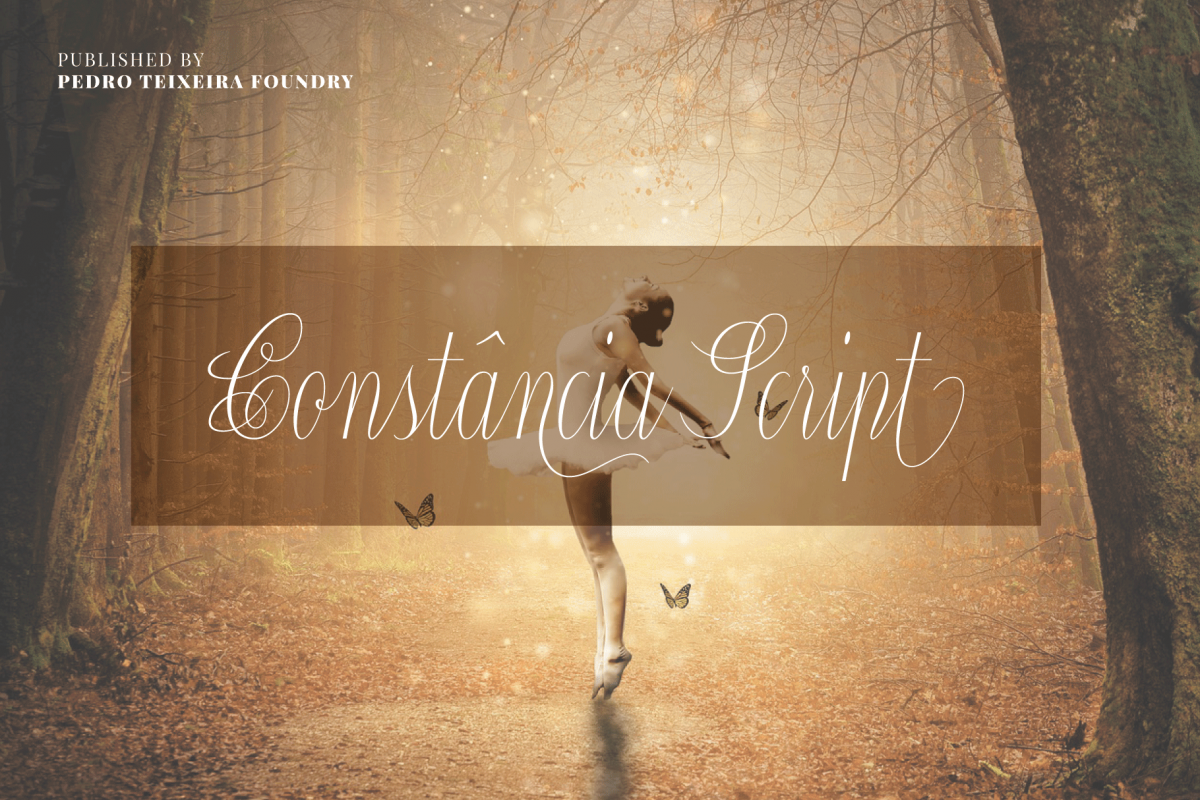
Constância Script
Constância Script, classic and elegant calligraphy. This unique, stylish and legible script is handy for logo, poster, headlines, invitations, cards and all display needs.
1. Constância Script - Upper and lowercase characters of basic latin/English, West European diacritics, central Europe, Baltic, Turkish, Romanian, Vietnamese, numerals, punctuation and OpenType features like alternates.